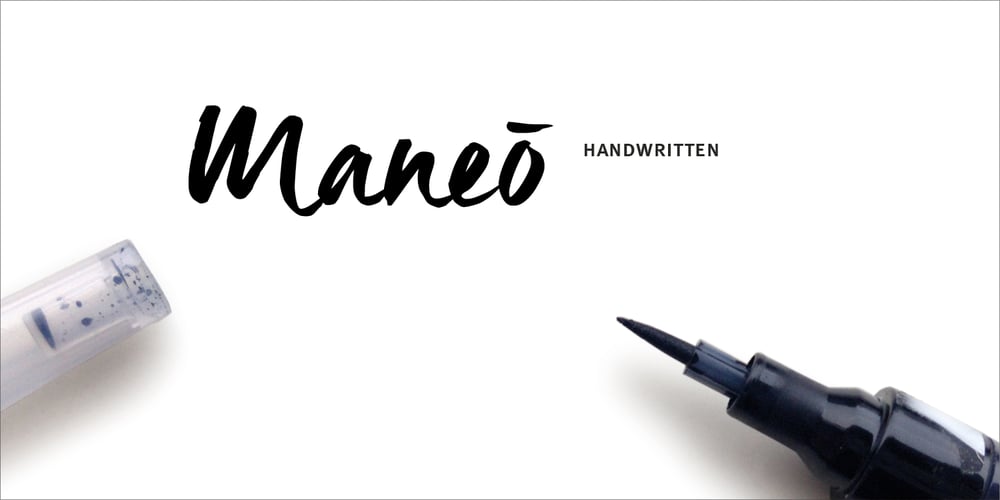
Maneo Font Family was designed by Geert Dijkers and published by JOEBOB graphics. Maneo contains 1 styles and family package options. Created with a fine brush, this font has a robust appearance with some elegant features to it. Use this typeface anyway you like!